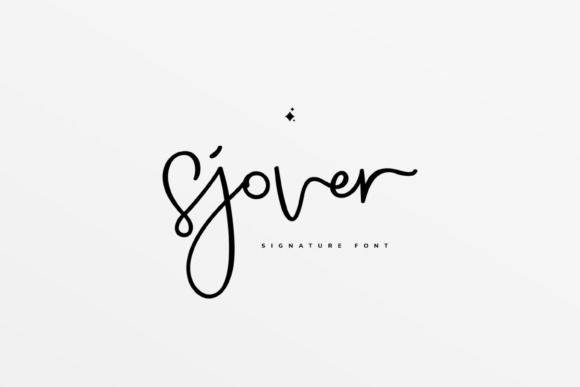
Introducing Sjover, a handwritten script font that captures the essence of ink pen writing, fusing classic allure, retro vibes, and a touch of simplicity. With Sjover, your designs will exude an irresistible elegance that captivates and leaves a lasting impression.
Step into a world of timeless beauty, where words dance with grace and sophistication. Sjover is the ultimate choice for typography art, effortlessly transforming your designs into captivating masterpieces. Its carefully crafted characters, reminiscent of the flow of ink on paper, add a personal, heartfelt touch to any project.
Transport yourself to an era of romance and elegance with Sjover. Perfect for wedding invitations, pamphlets, and other special occasions, this font brings a heartfelt touch that resonates with your audience. Let your words flow with the grace of a handwritten note, evoking a sense of nostalgia and charm.
Whether you're a seasoned designer or just starting your creative journey, Sjover is your perfect companion. Its versatility shines in lettering, posters, logos, and branding, adding a touch of sophistication and timeless appeal to your projects. Unleash your imagination and watch as your designs flourish with Sjover's timeless beauty.
Immerse yourself in a world of creativity with Sjover, where the possibilities are endless. Discover the joy of creating designs that speak to the heart and leave a lasting impact. Let your imagination soar and let Sjover be your guide as you craft masterpieces that captivate and inspire.